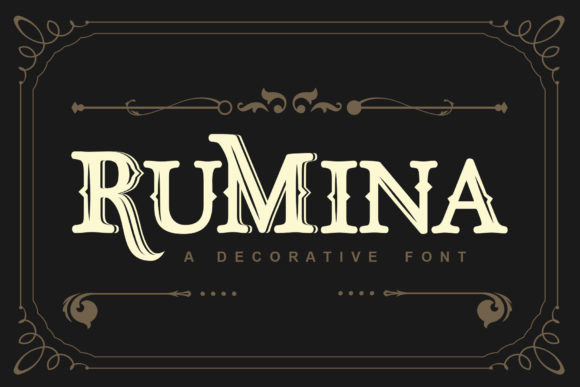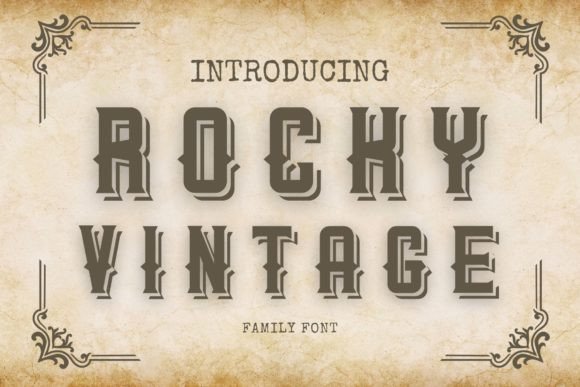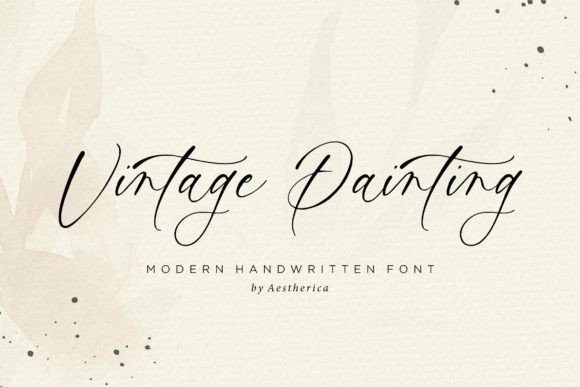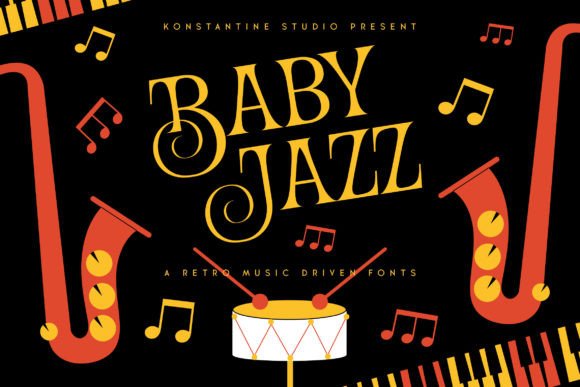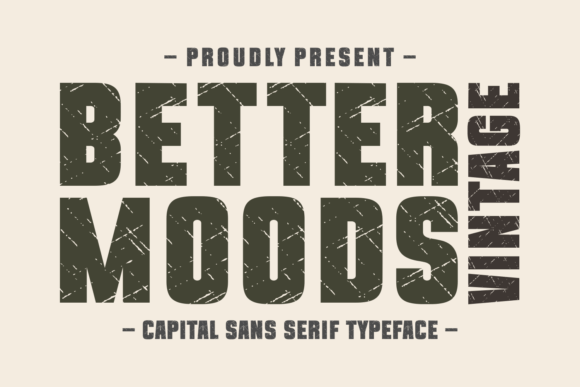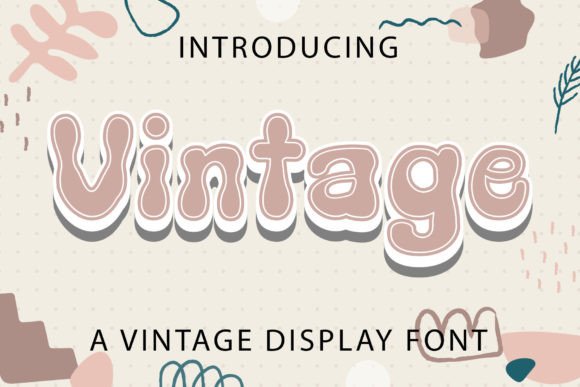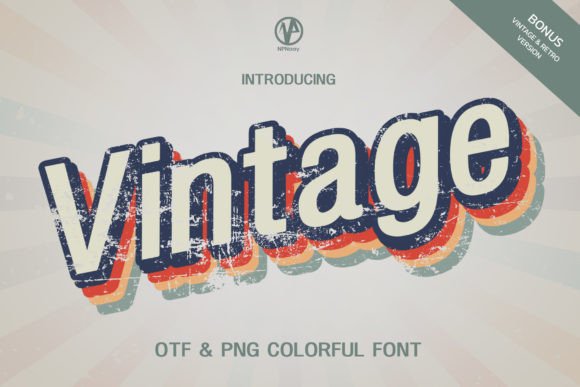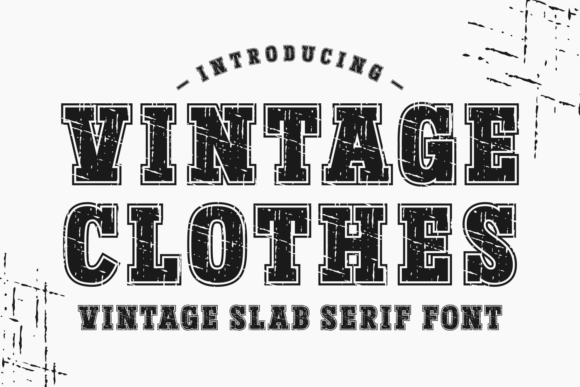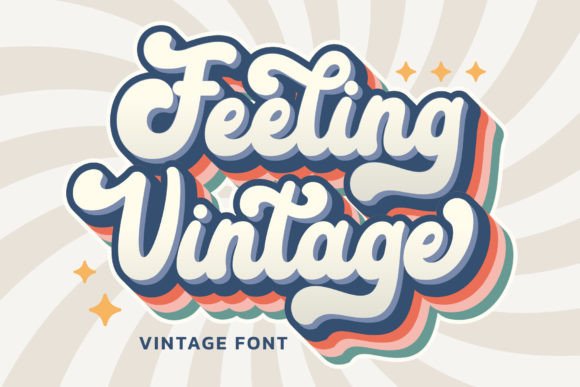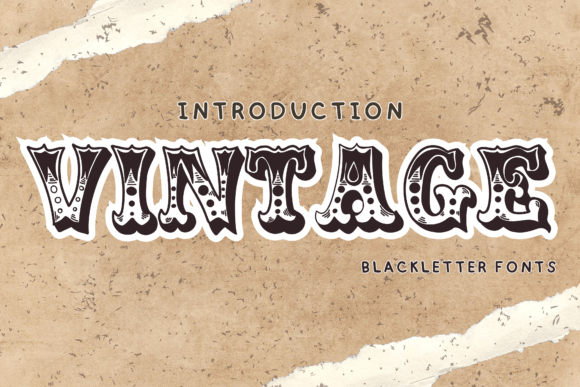
21 Retro Fonts for Vintage Branding and Design
Vintage Branding & Typography
Discover retro and vintage fonts for logos, apparel, posters, packaging, labels, merchandise, and nostalgic brand identities.
Why retro fonts work so well
Retro typography can instantly create a sense of nostalgia, personality, and visual history. The right vintage font can make a logo feel more memorable while helping a brand communicate a specific era, mood, or creative direction.
How to Choose a Retro Font
Choosing a retro font starts with understanding the feeling you want the design to communicate. Vintage typography can range from elegant and decorative to bold, sporty, playful, handcrafted, or distressed.
Consider the brand personality, the industry, and where the typography will appear. A bold vintage display font can work well for apparel and posters, while a vintage script or calligraphy style may be better suited to boutique branding, invitations, packaging, and lifestyle projects.
This collection brings together 21 retro and vintage fonts with different personalities, from classic display typefaces and collegiate lettering to vintage scripts, calligraphy, sports-inspired styles, and decorative branding fonts.
Vintage Font NPNaay
01 · Classic Vintage
Vintage Font — NPNaay
Vintage Font by NPNaay brings a classic retro character to typography and branding. Its nostalgic appearance makes it a strong choice for logos, posters, packaging, apparel designs, badges, labels, and projects inspired by traditional vintage aesthetics.
Best for: Vintage logos, apparel, posters, packaging, badges, labels, and nostalgic branding.
Vintage Clothes font
02 · Retro Display
Vintage Clothes
Vintage Clothes captures the charm of classic vintage typography with a bold and nostalgic personality. It works especially well for clothing brands, merchandise, logos, posters, labels, packaging, and retro-inspired branding.
Best for: Clothing brands, apparel graphics, merchandise, posters, logos, and packaging.
Felling Vintage font
03 · Handcrafted Retro
Felling Vintage
Felling Vintage combines nostalgic styling with expressive lettering and a handcrafted feel. Its character can add warmth to branding, packaging, posters, apparel, labels, invitations, and creative projects that need an authentic vintage atmosphere.
Best for: Handcrafted branding, apparel, posters, packaging, invitations, and creative projects.
Vintage Font Fractal Font Factory
04 · Classic Display
Vintage Font — Fractal Font Factory
This vintage typeface from Fractal Font Factory has a classic display personality that works well when a design needs a strong nostalgic identity. It can be used for logos, posters, packaging, labels, merchandise, and vintage-themed branding.
Best for: Logos, posters, labels, packaging, merchandise, and vintage branding.
Madista Vintage font
05 · Decorative Vintage
Madista Vintage
Madista Vintage offers a decorative retro character with plenty of visual personality. Its nostalgic style is suitable for branding, posters, packaging, fashion projects, labels, advertisements, and creative display typography.
Best for: Fashion branding, posters, packaging, labels, advertisements, and display designs.
Better Moods Vintage font
06 · Lifestyle Retro
Better Moods Vintage
Better Moods Vintage brings a relaxed nostalgic feeling to display typography. Its expressive character can help create memorable logos, apparel graphics, posters, social media designs, packaging, and lifestyle branding with a retro touch.
Best for: Lifestyle brands, apparel, social graphics, posters, packaging, and logos.
Vintage Creative font
07 · Creative Retro
Vintage Creative
Vintage Creative is a versatile retro display style designed to give typography a nostalgic and handcrafted personality. It works nicely for logos, packaging, posters, branding projects, apparel, and creative promotional materials.
Best for: Creative branding, logos, packaging, apparel, posters, and promotional graphics.
Rumina font
08 · Vintage Serif
Rumina
Rumina combines bold typography with a vintage-inspired personality. Its strong display character makes it a natural fit for logos, packaging, labels, fashion branding, posters, merchandise, and designs that need a distinctive classic appearance.
Best for: Vintage logos, fashion branding, packaging, labels, posters, and merchandise.
Vintage Painting font
09 · Artistic Vintage
Vintage Painting
Vintage Painting has an artistic nostalgic character that can make typography feel more expressive and handcrafted. It is a useful choice for posters, packaging, labels, branding, stationery, artwork, and projects inspired by vintage design.